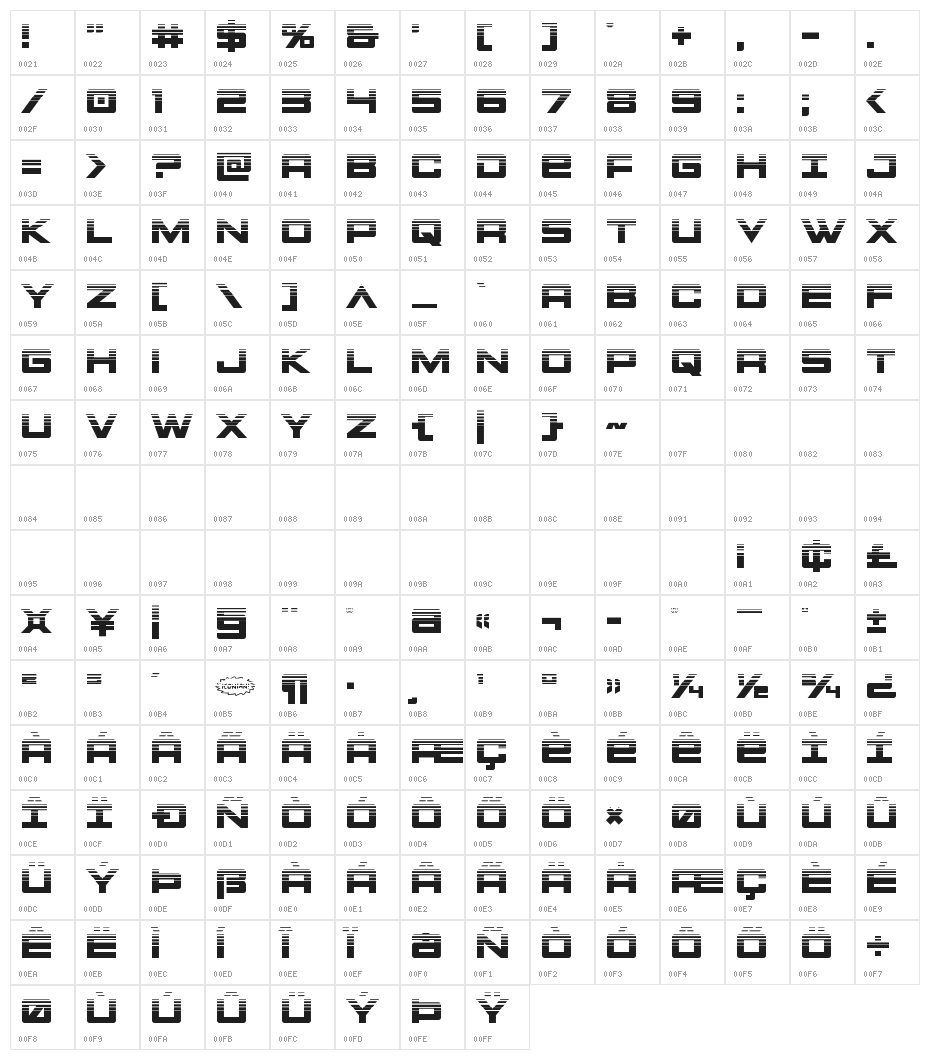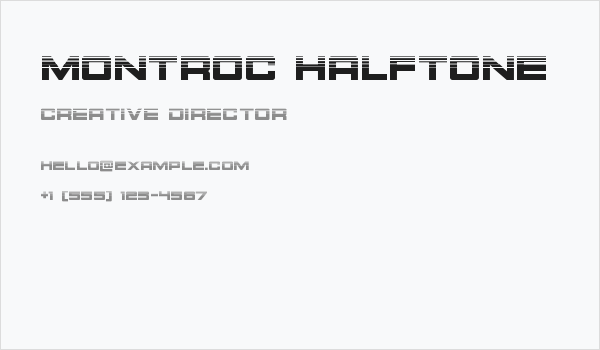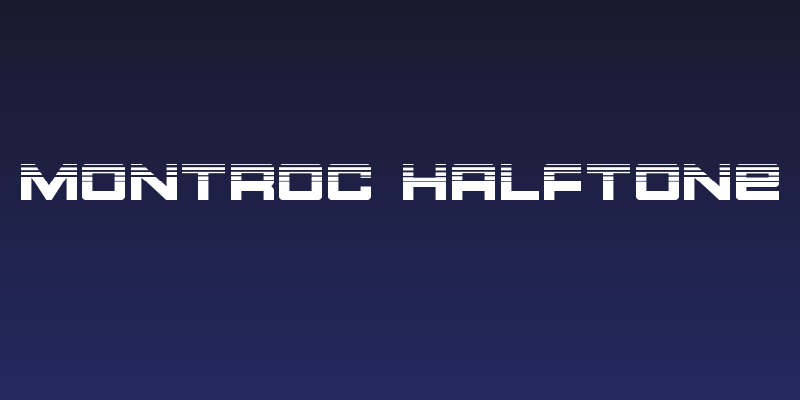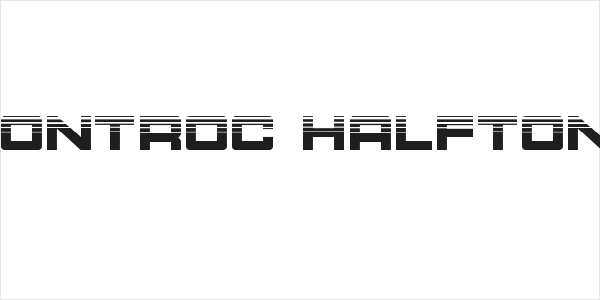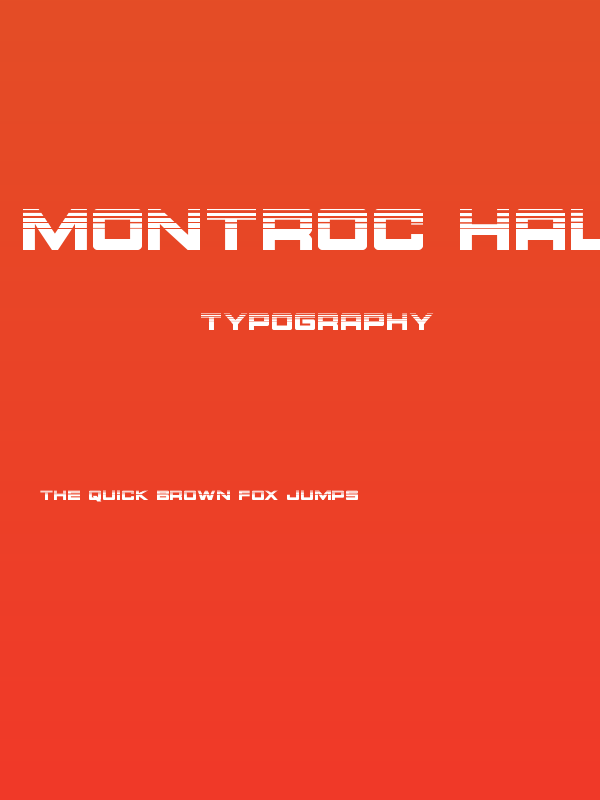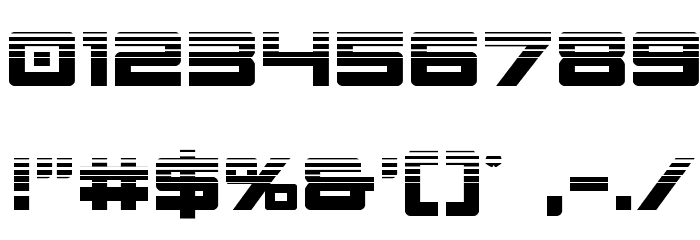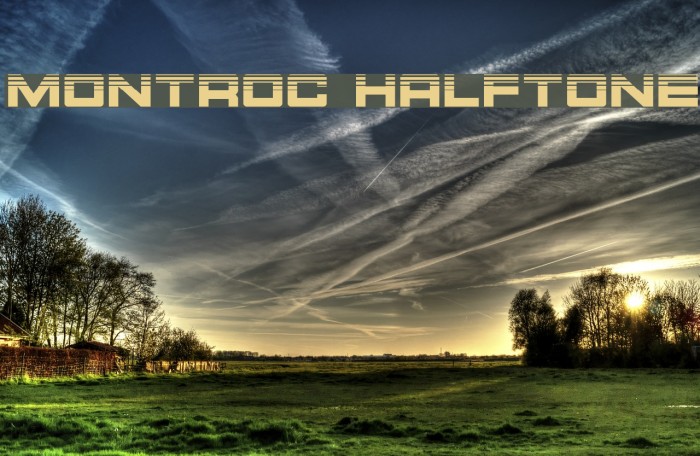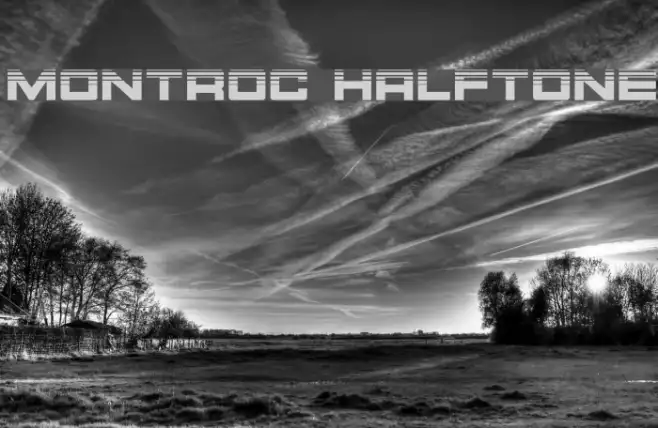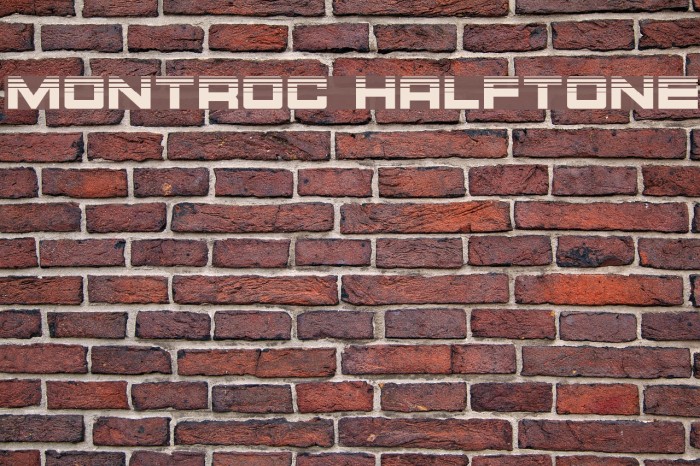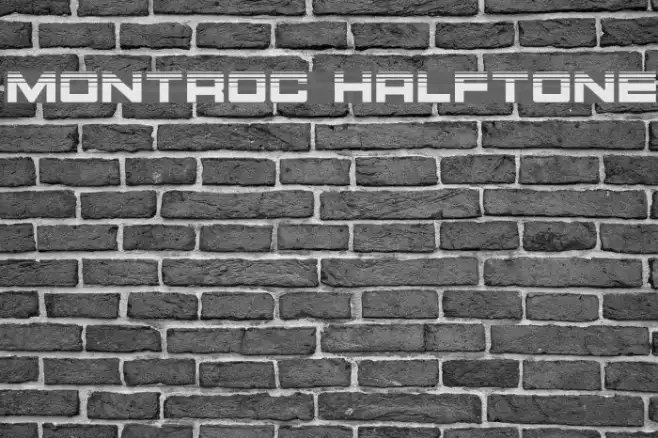
Montroc Halftone Font
Montroc Halftone Description
This font features a bold, futuristic design with a halftone effect that gives it a unique, digital appearance. The characters are constructed with a series of horizontal lines that create a sense of movement and depth. The uppercase letters are uniform in height, while the numbers and special characters maintain the same stylistic approach, ensuring consistency across all elements. The font's geometric structure and sharp edges make it ideal for modern and tech-oriented designs. Its distinct style is eye-catching and suitable for projects that require a strong visual impact.
| Proposed Projects | Ideal for tech branding, digital media, video game titles, and futuristic posters. |